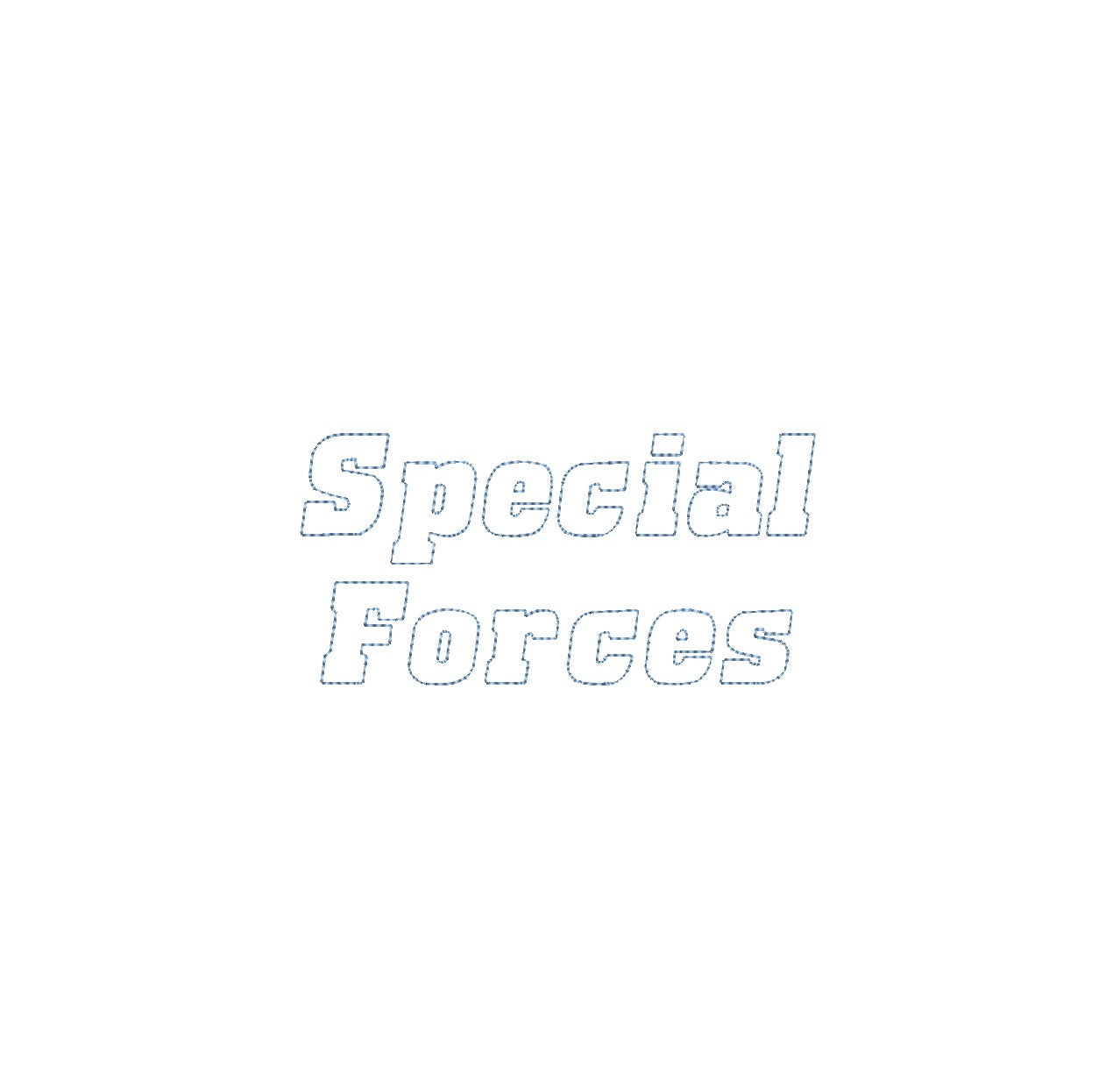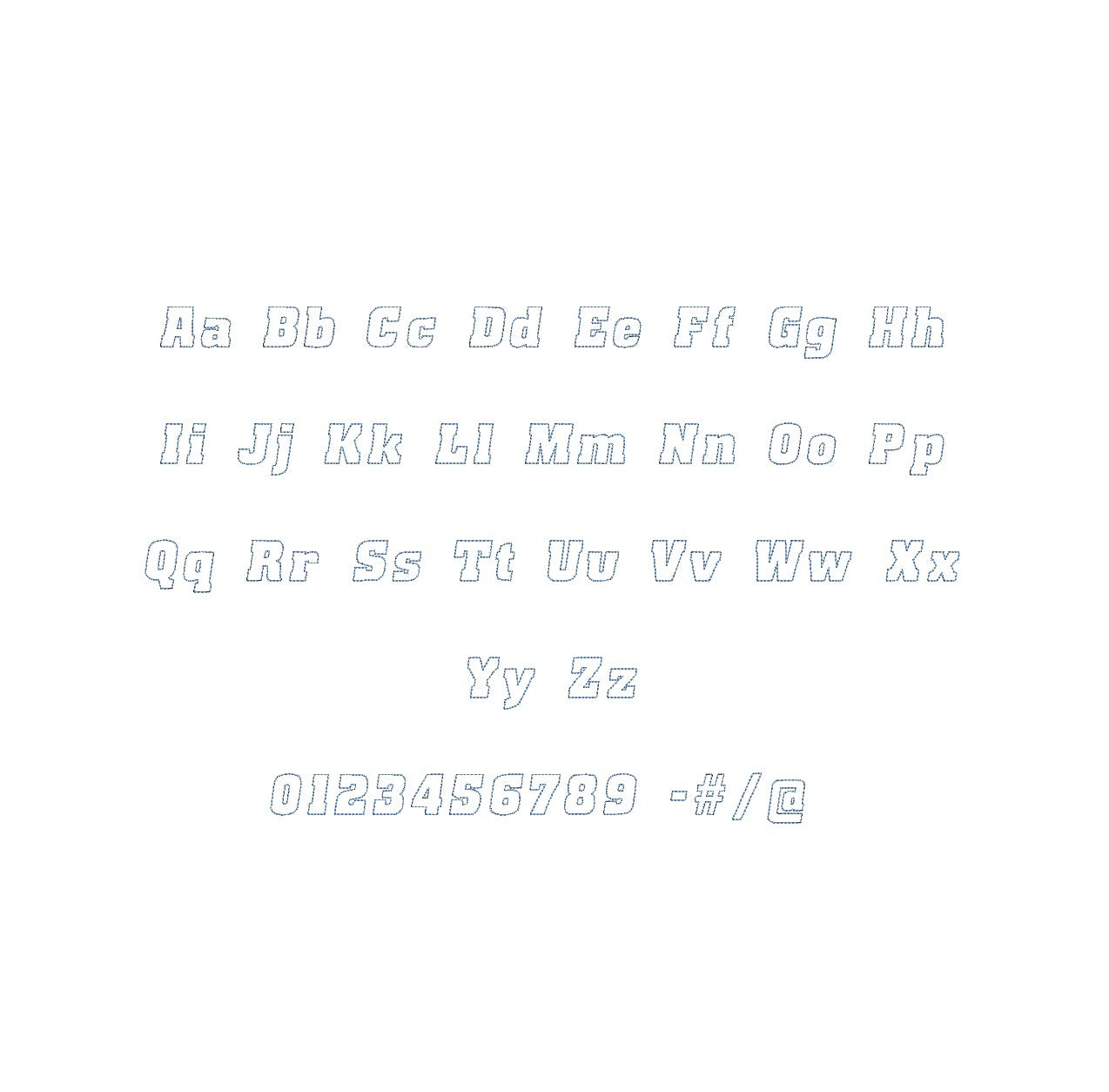
Elevate your embroidery projects with the Special Forces Bean Outline ESA font, compatible with Wilcom Studio e4.5.6 and Hatch 3 versions and up. This font seamlessly combines boldness and precision, infusing your designs with a unique aesthetic perfect for impactful monograms and embellishments. Experience seamless compatibility for outstanding results and unleash a new level of stitching finesse. Transform your creations into embroidery masterpieces that radiate strength and confidence. Elevate your projects with the Special Forces Bean Outline ESA font and make your embroidery truly powerful and unforgettable.